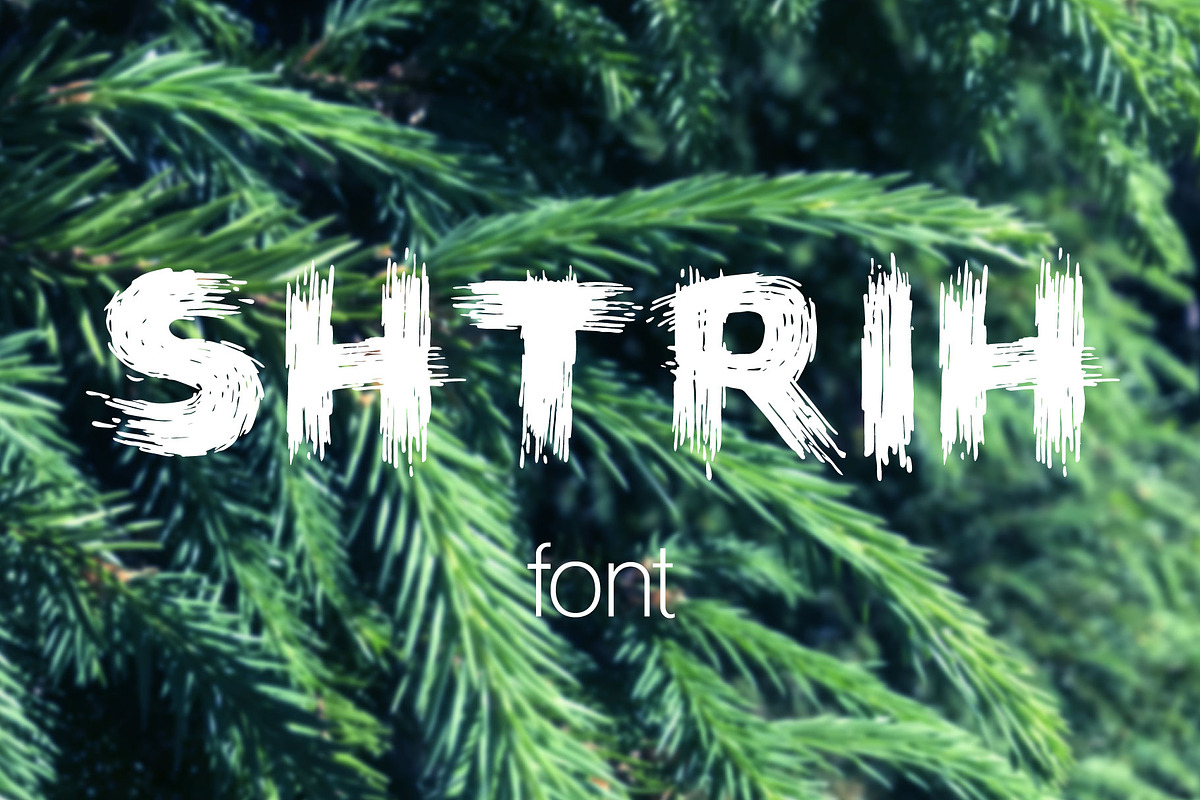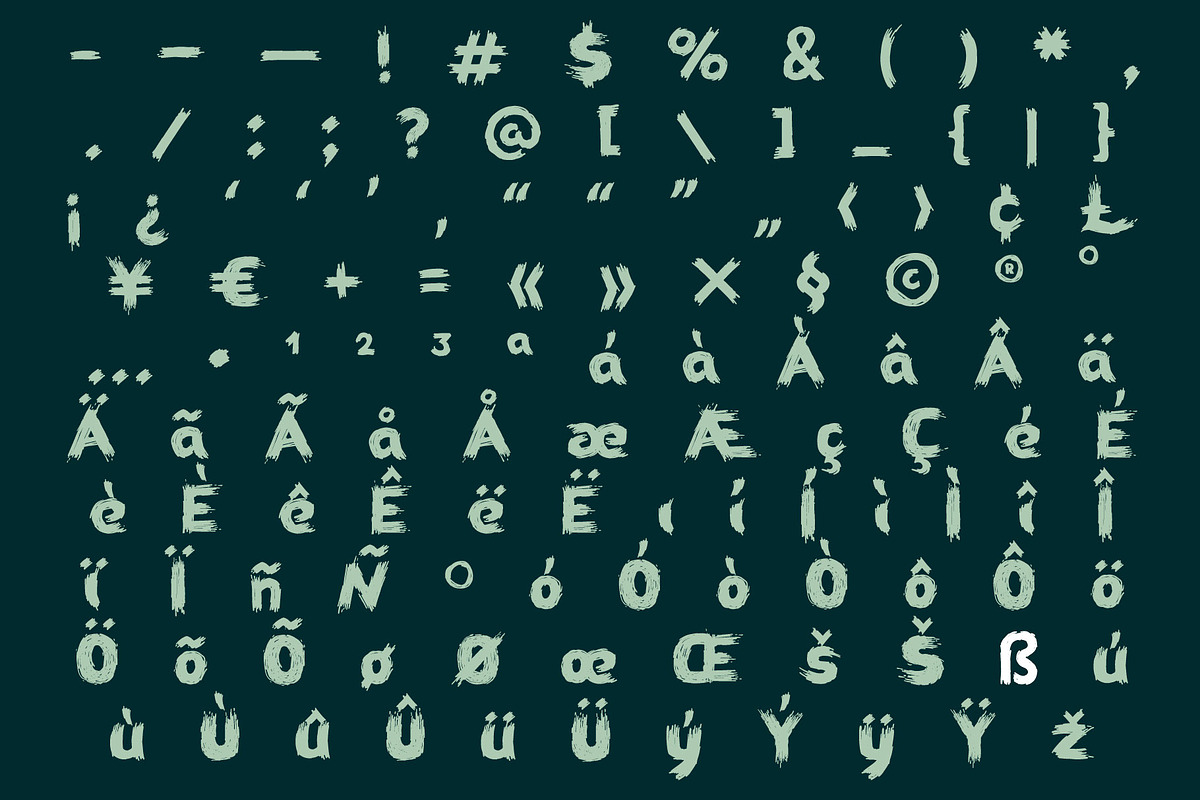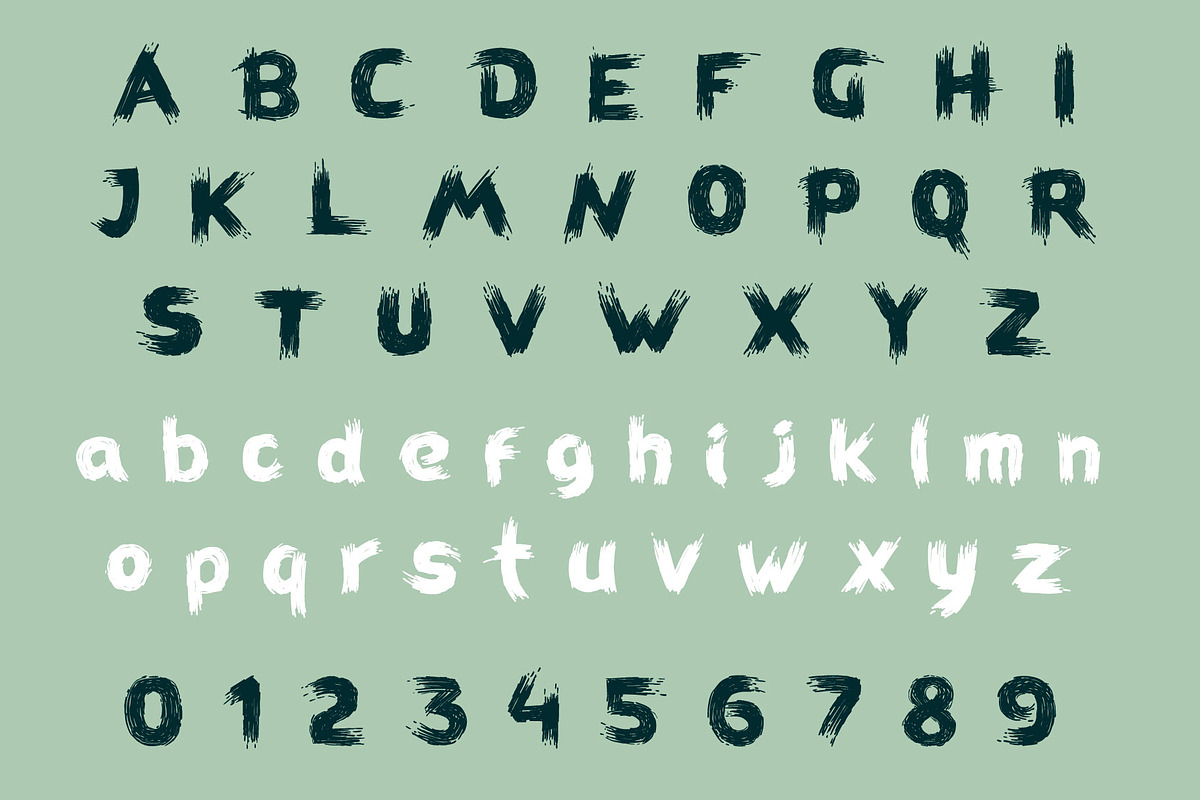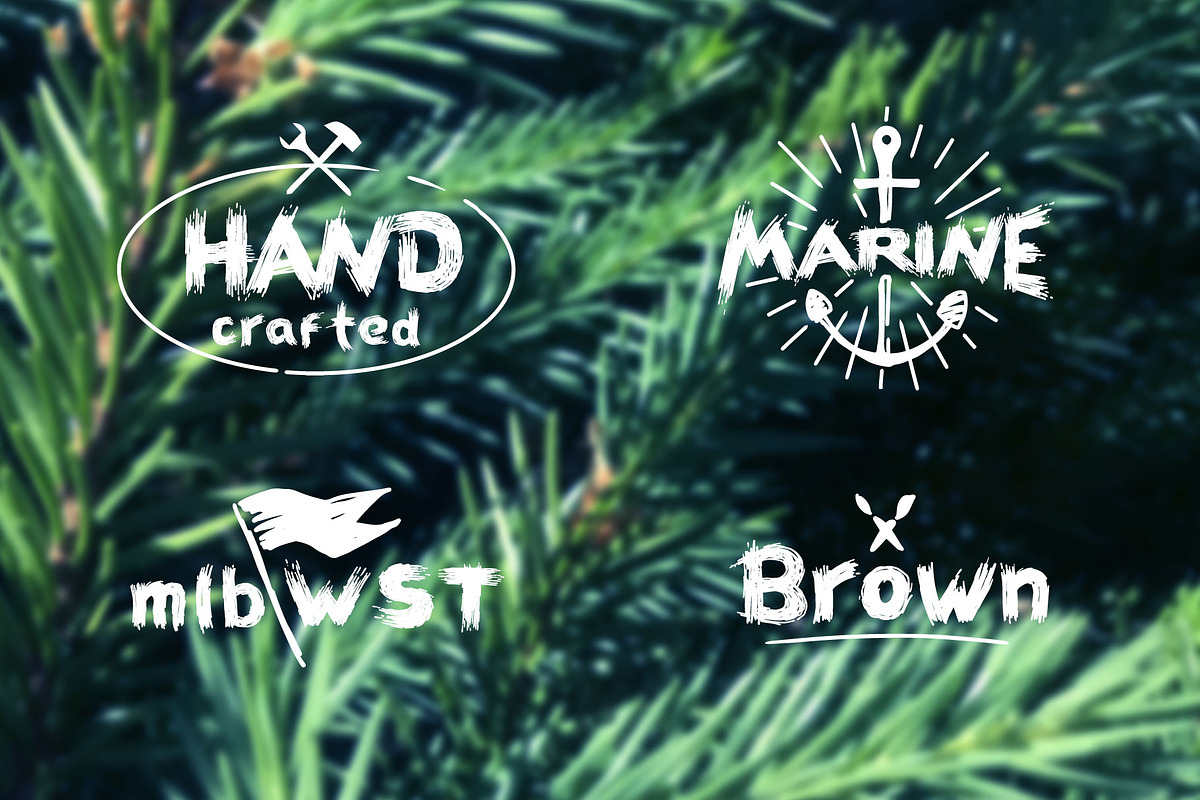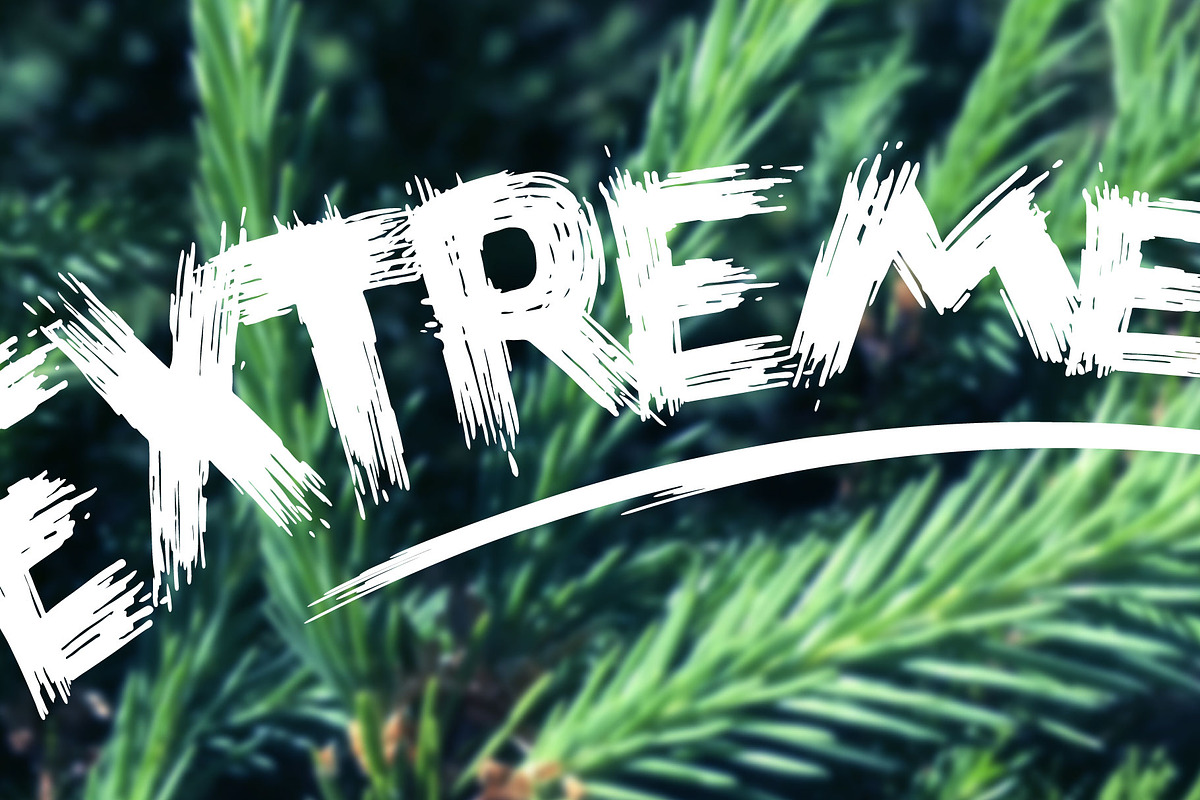
Shtrih font
Hand drawn felt pen font. Vector grunge style design for your posters or prints.
Why Shtrih font is worth a look
Shtrih font by kaershop fits naturally into Branding, posters, packaging, typography.